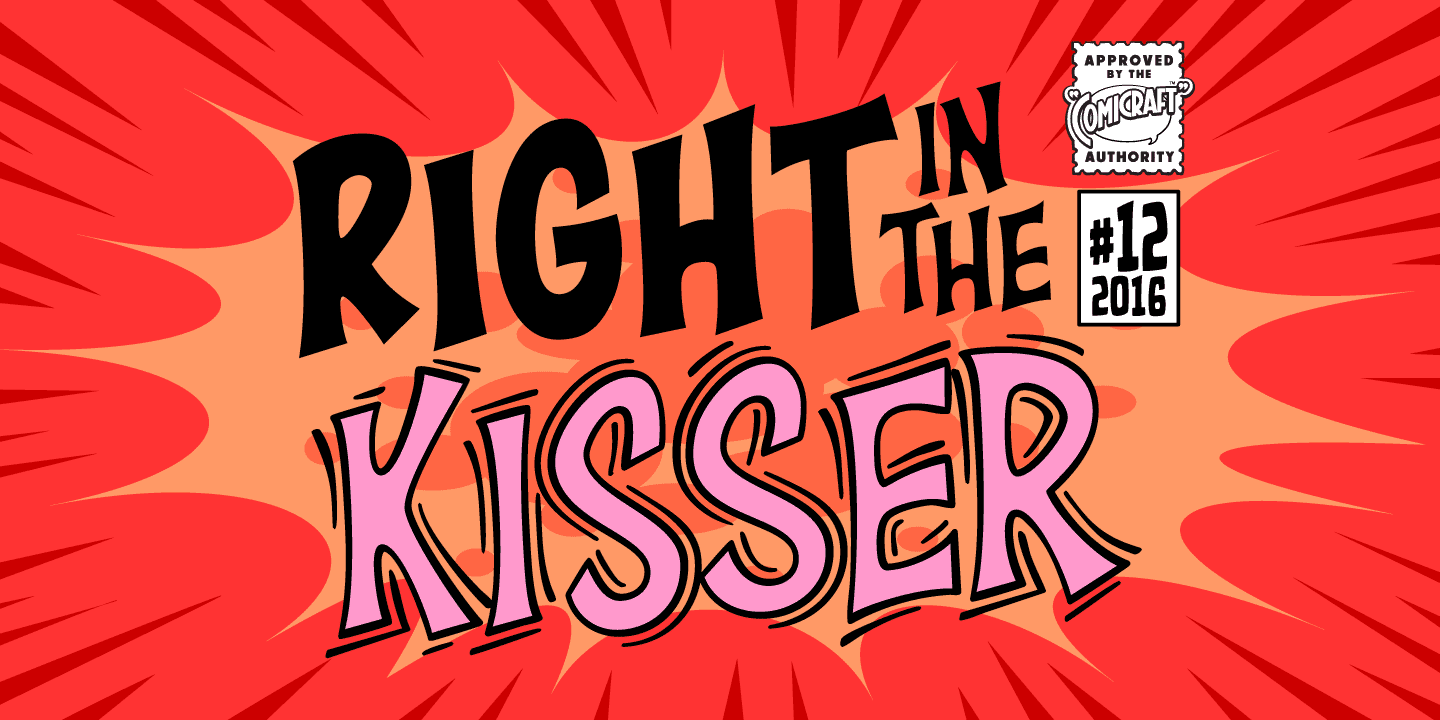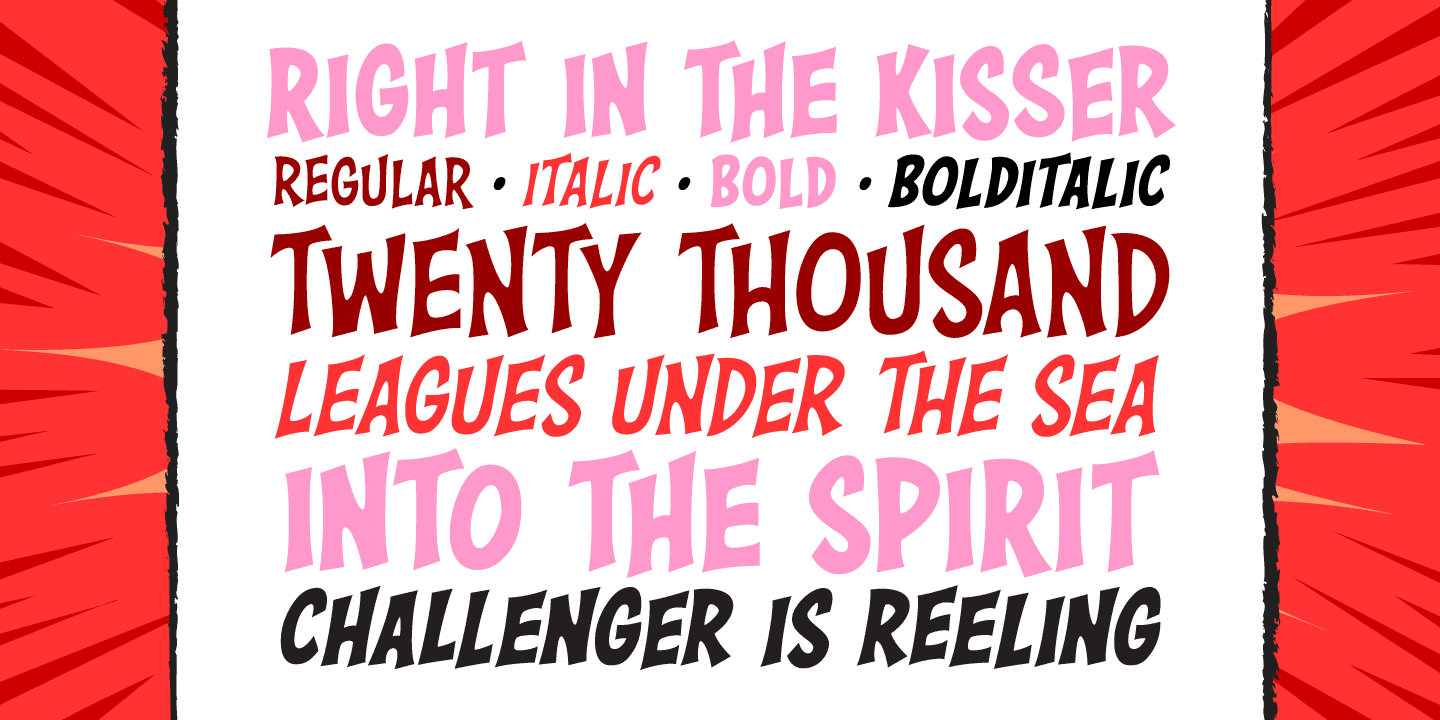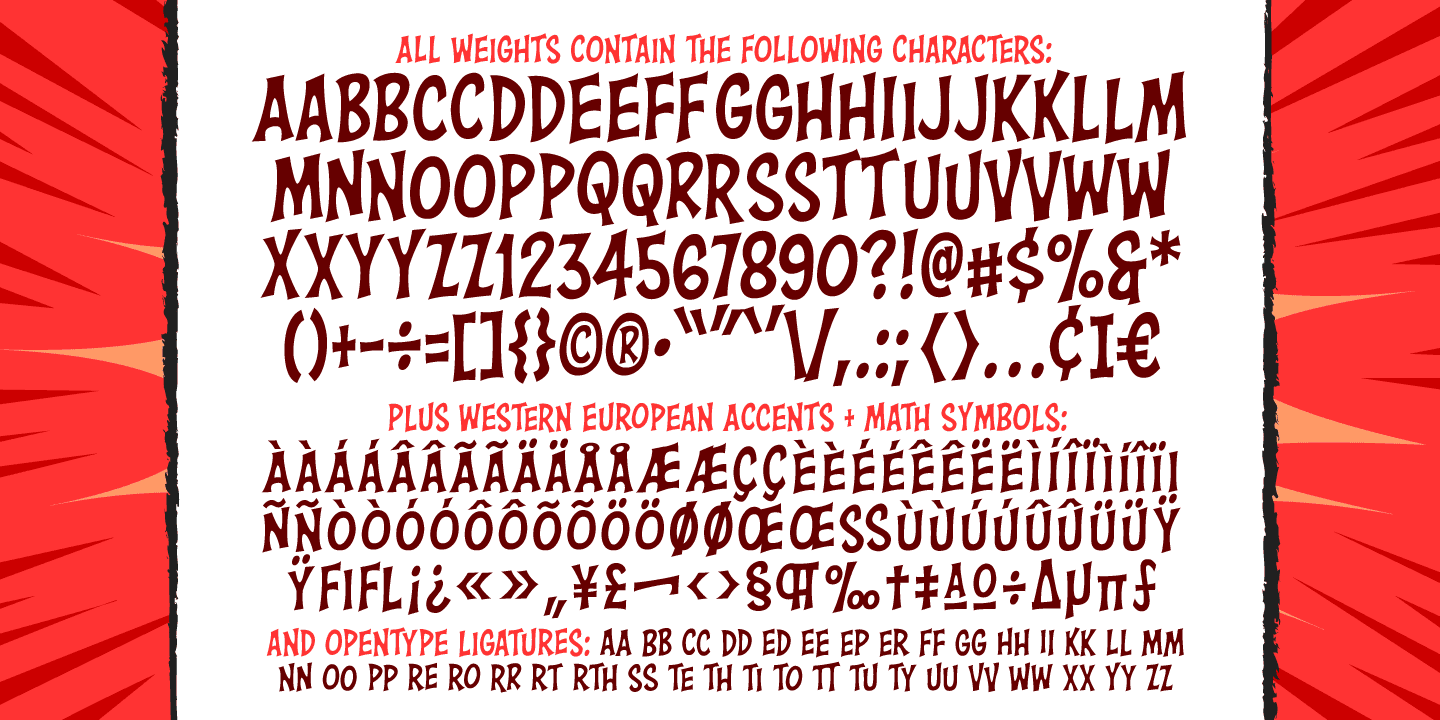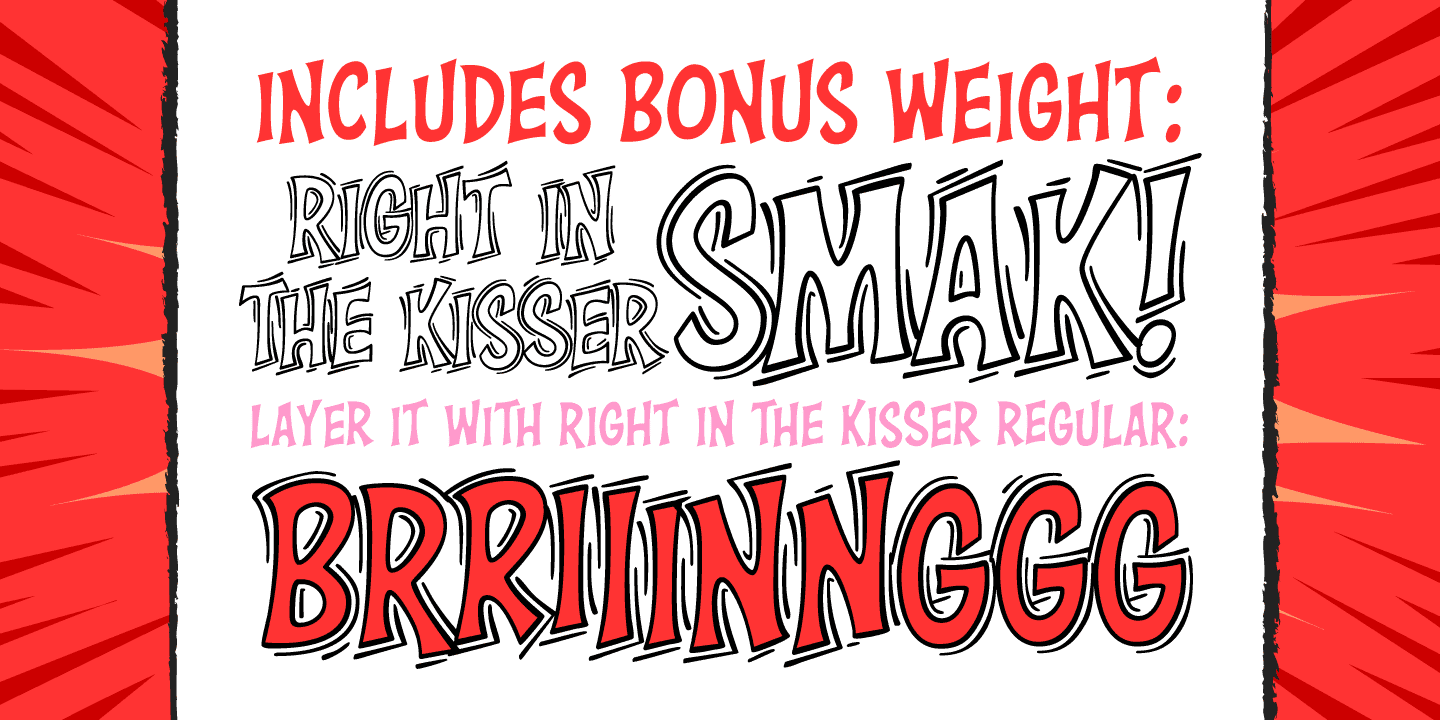
Right in the Kisser
Font Family by Comicraft Fonts
SECONDS OUT! ROUND ONE! The champ comes out swinging, there’s a left hook, a right hook, another left, another left to the chin, a box to the ears, a punch to the stomach, the challenger is reeling, he’s on the ropes, there’s another left to the chin and here’s the knockout, RIGHT IN THE KISSER!
The Kisser. The Mouth. You know, what you kiss with? SMAK! It’s a font with a fat lip or one that makes you look like you’re talking’ with a fat lip. Or if you’re more of a lover than a fighter, it’s a big wet kiss from your loved one when the clock strikes midnight on New Year’s Eve. Either way, you win!
Right in the Kisser Regular
Right in the Kisser Italic
Right in the Kisser Bold
Right in the Kisser Bold Italic
Right in the Kisser SMAK